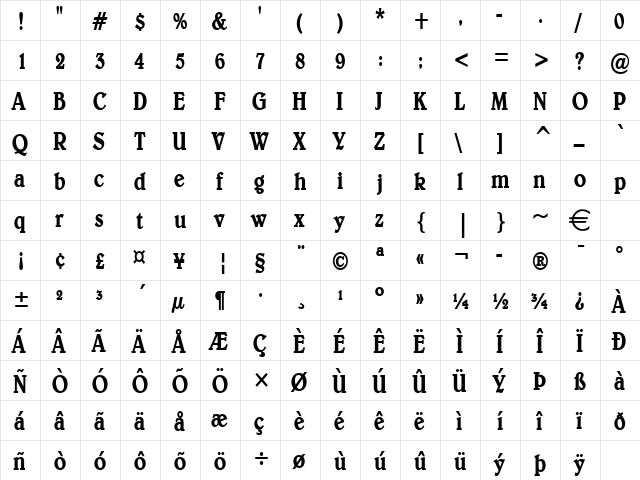
BlewThin Bold Font Preview
BlewThin Bold
Design Context for BlewThin Typeface
BlewThin is a composed and adaptable typeface that performs quietly and consistently across a wide range of design contexts. The heavy weight commands attention and anchors typographic hierarchies.